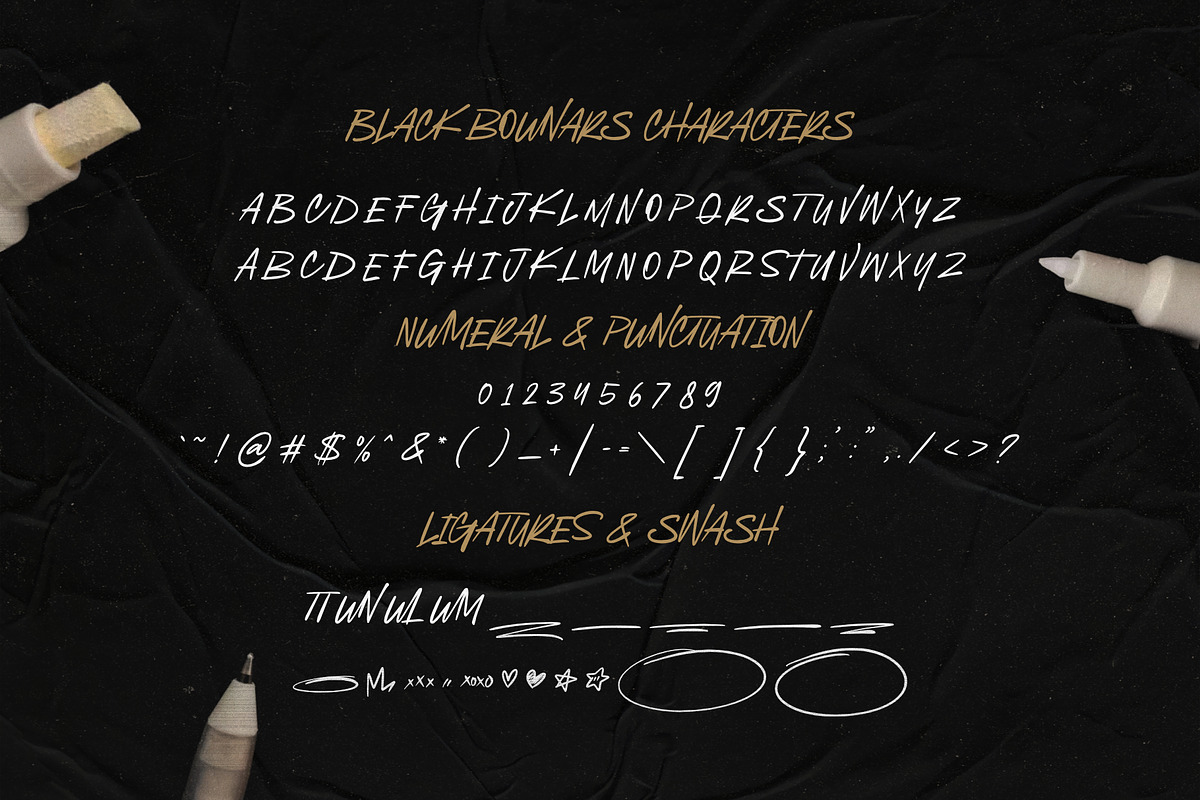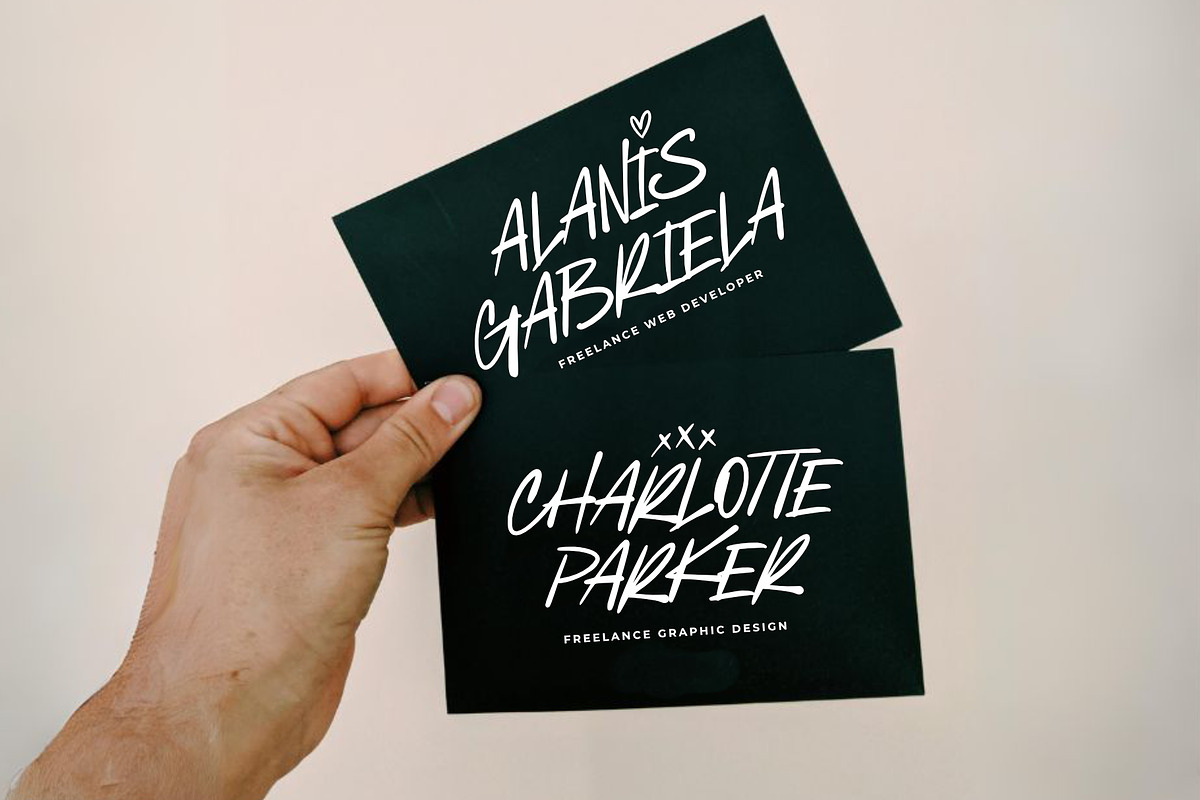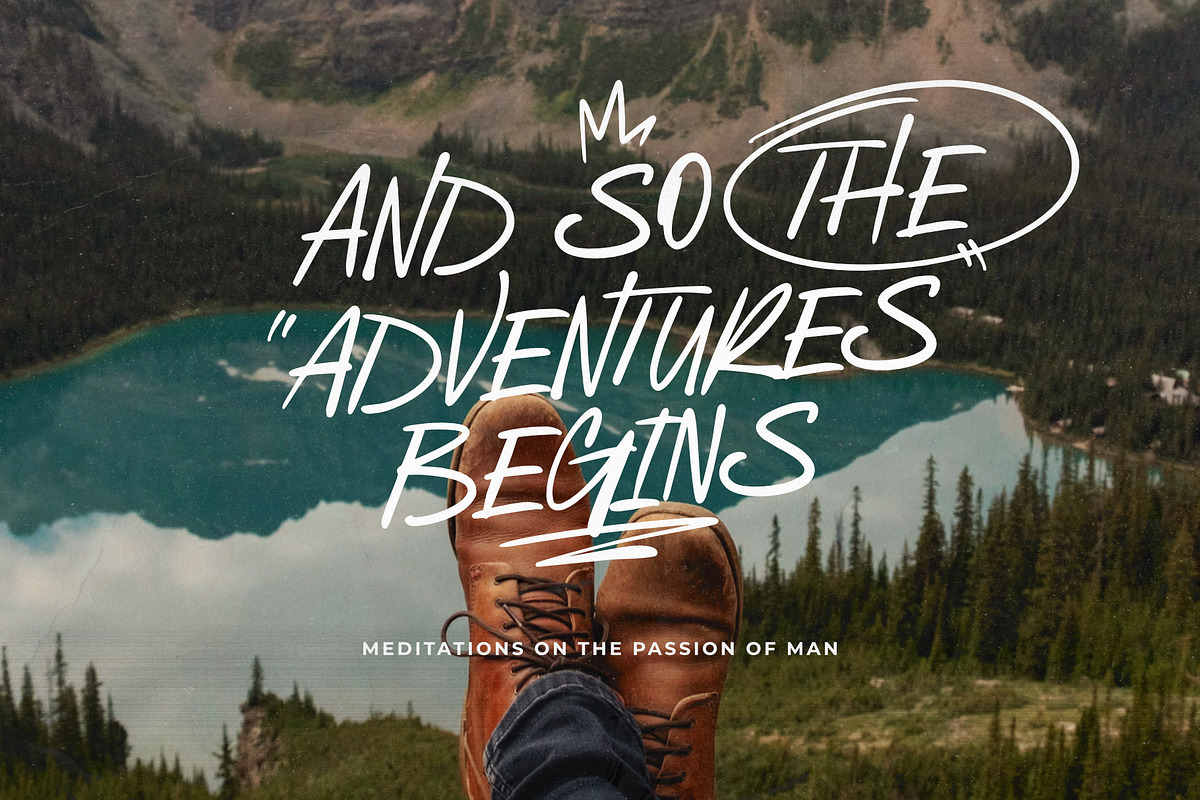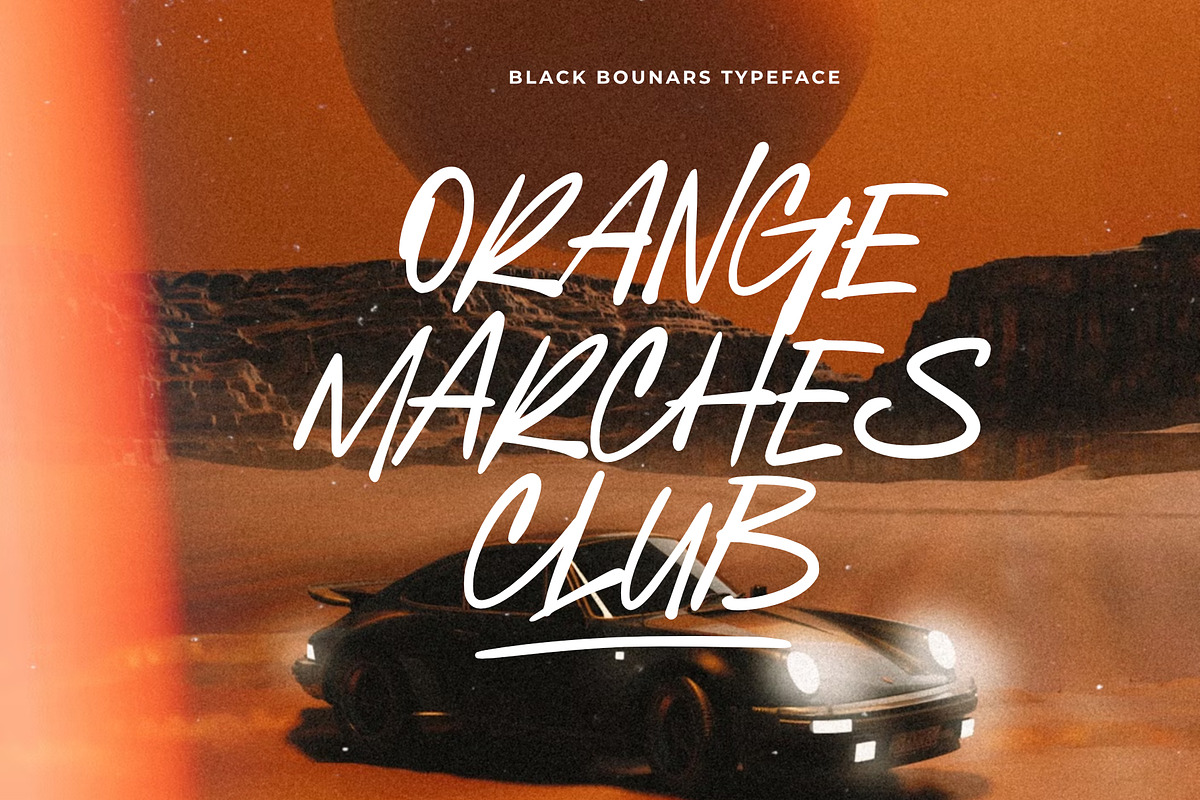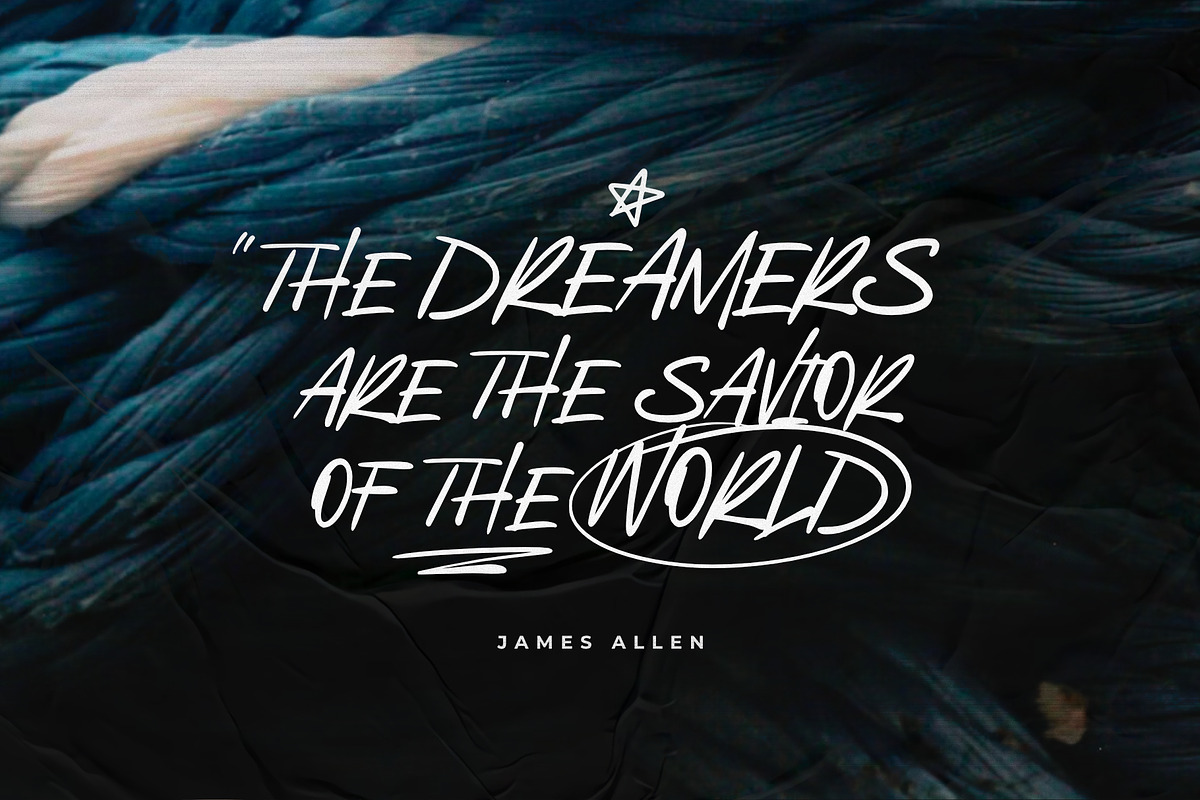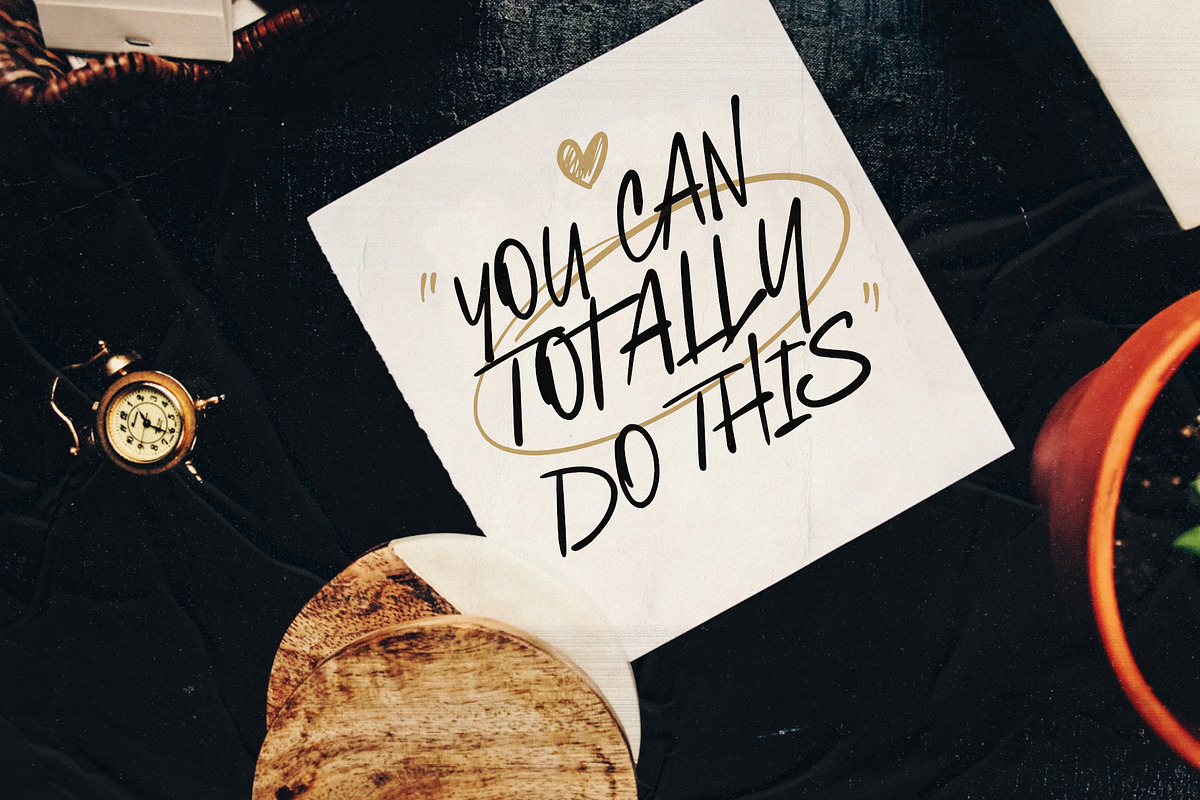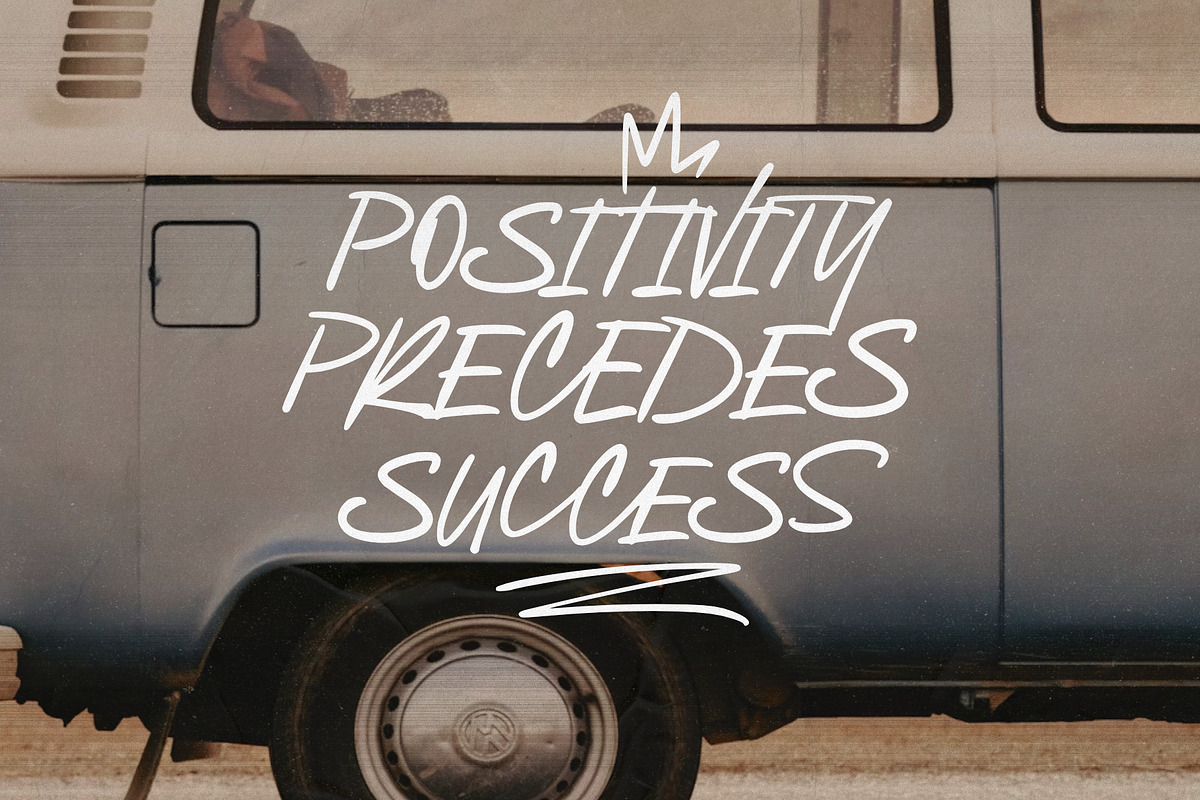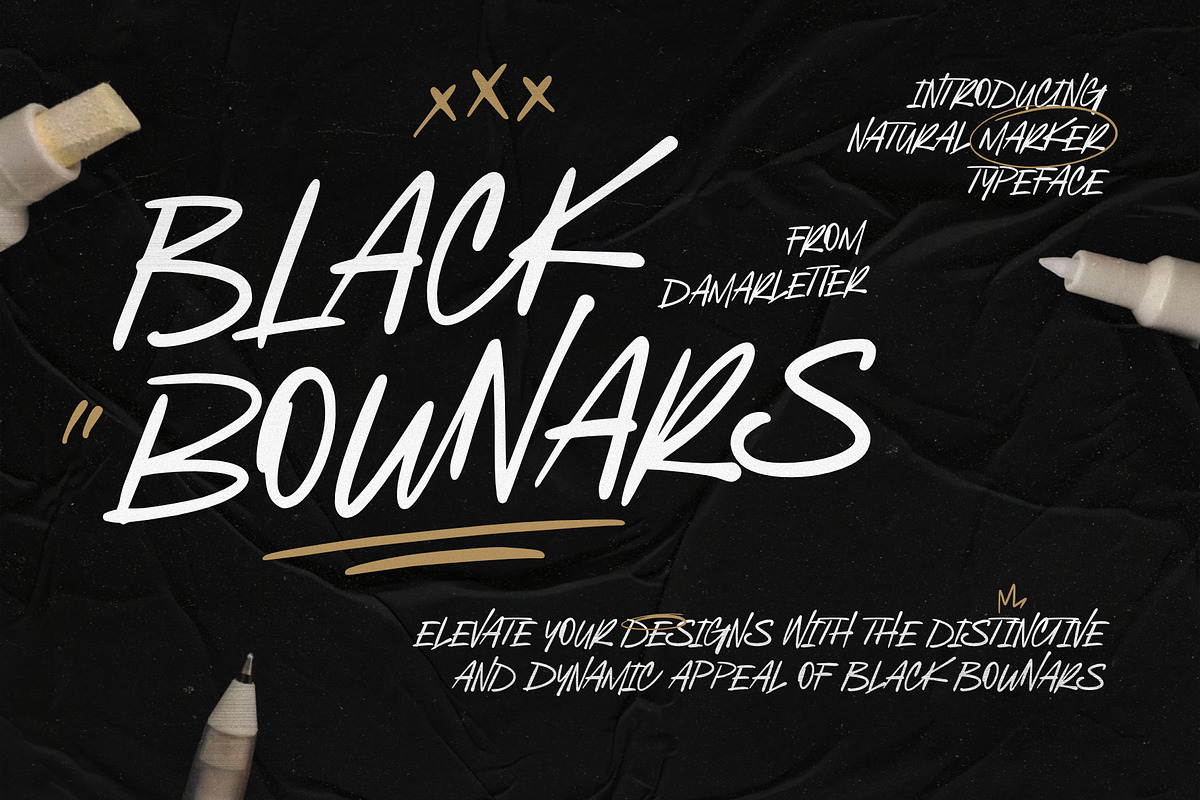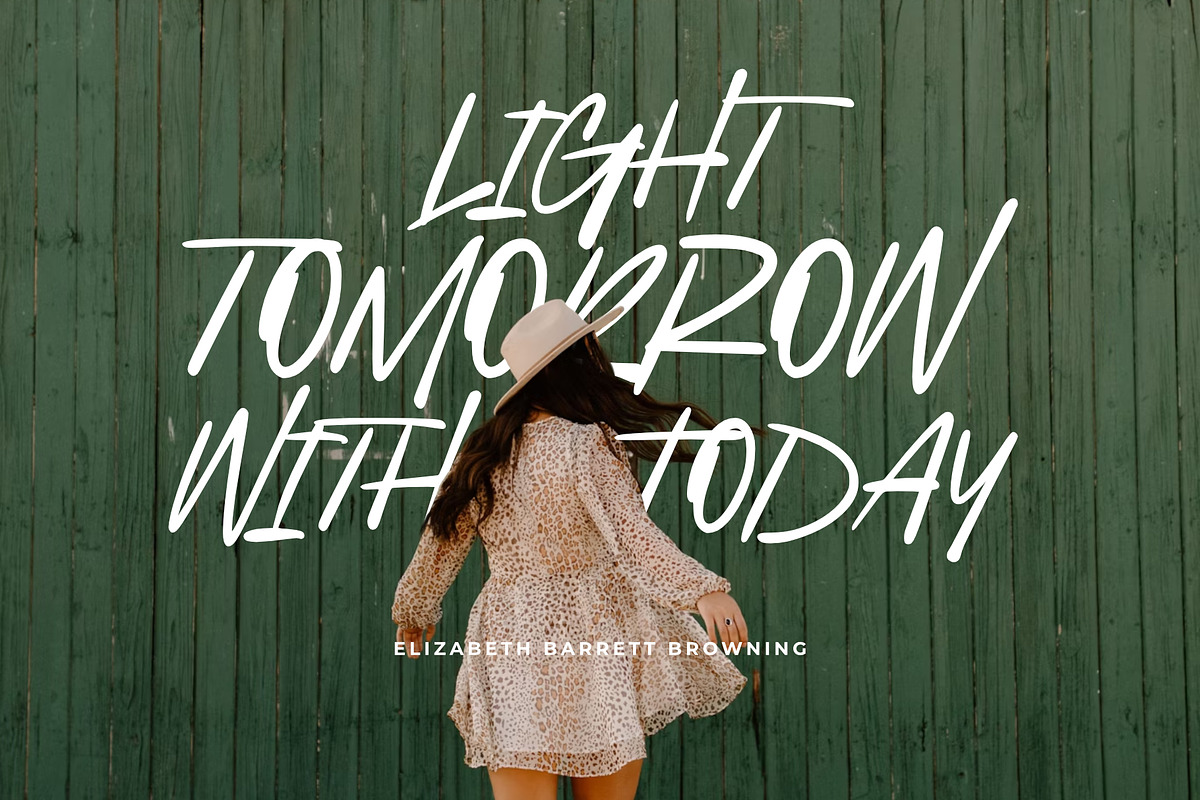
Black Bounars Natural Marker
Black Bounars is natural marker typeface. It has modern and bold font that commands attention with its sleek lines and sharp edges. This versatile typeface seamlessly blends a contemporary aesthetic with a touch of sophistication. Ideal for headlines, posters, and branding projects, the font's strong presence and unique character make a powerful statement. Elevate your designs with the distinctive and dynamic appeal of Black Bounars, where modernity meets timeless elegance